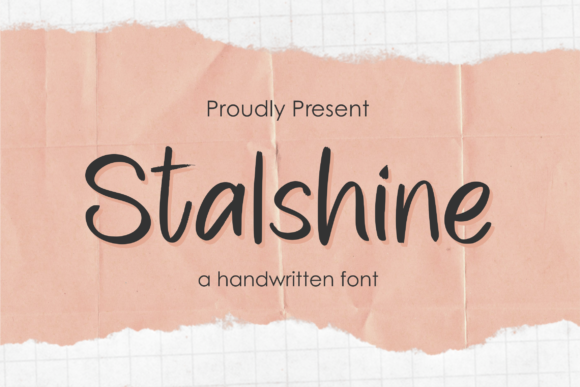
Meet Stalshine, the Enchanting Handwritten Script Font That Will Make Your Designs Shine!
Unleash the magic of Stalshine, a captivating script font that will add a touch of elegance and charm to your creative projects. With its graceful curves and playful personality, Stalshine is perfect for adding a personal touch to any design.
Stalshine's versatility knows no bounds. Whether you're designing logos, invitations, posters, or social media graphics, Stalshine will elevate your work with its timeless beauty. Its wide range of applications makes it a must-have for any designer looking to create standout designs that leave a lasting impression.
Step into the world of Stalshine and discover a font that will transform your designs into works of art. Say goodbye to ordinary and hello to extraordinary with Stalshine, the font that will make your creativity soar.